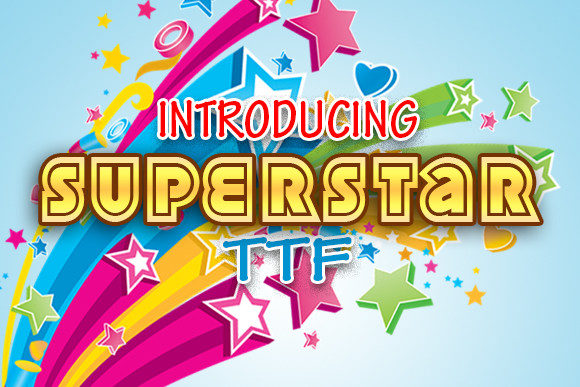
Superstar: A Groovy Font That Elevates Your Designs
If you're looking for a font that adds a touch of retro flair and modern energy to your designs, Superstar is the perfect choice. This groovy font brings a unique vibe that can transform everything from flyers to t-shirts, making it an essential tool for designers, artists, and entrepreneurs alike. Whether you're creating promotional materials or personal projects, Superstar offers a stylish solution that stands out.
Designed with a blend of classic and contemporary elements, Superstar is more than just a font—it's a creative statement. Its bold strokes and playful curves make it ideal for eye-catching headlines, logos, and branding materials. The font’s versatility allows it to fit into various design contexts, from vintage-themed projects to modern digital campaigns.
Challenges in Design and How Superstar Can Help
Designing effective visual content often comes with its own set of challenges. From choosing the right font that aligns with your brand identity to ensuring readability across different mediums, the process can be overwhelming. Many designers struggle with finding a font that balances uniqueness with usability, especially when working on projects that require both aesthetic appeal and clarity.
This is where Superstar shines. Its distinctive style ensures that your designs grab attention without sacrificing legibility. For instance, if you're designing a flyer for a music event, Superstar can add the perfect retro feel while still being easy to read from a distance. Similarly, when creating t-shirts for a band or a local business, the font’s energetic look can help convey the right mood and message.
Practical Applications of Superstar
The applications of Superstar are as varied as the creative minds that use it. Here are a few practical scenarios where this font can make a significant difference:
For businesses, Superstar can be a powerful tool in building a cohesive brand image. By using the same font across different platforms—such as websites, packaging, and advertisements—you can create a consistent and recognizable brand presence.
How Different Users Might Approach Superstar
Users may approach Superstar in different ways depending on their specific needs and goals. A graphic designer might use it for client projects that require a bold and eye-catching look, while a small business owner could incorporate it into their branding to stand out in a competitive market.
For those new to font design, Superstar offers a great starting point. Its intuitive style makes it easy to integrate into existing projects without requiring extensive design knowledge. On the other hand, experienced designers might appreciate the font’s flexibility, allowing them to experiment with different layouts and visual effects.
Regardless of your skill level, Superstar provides a straightforward way to enhance your designs. Its ease of use and adaptability make it a valuable addition to any designer’s toolkit.
Recommendations and Considerations
When using Superstar, consider the context in which it will be used. While the font is highly readable in larger sizes, it may not be suitable for long blocks of text. Instead, use it for headings, titles, and short phrases to maintain clarity and impact.
Additionally, ensure that Superstar complements the overall design. If your project has a minimalist or modern theme, pairing Superstar with simpler fonts can create a balanced and harmonious look. For more eclectic designs, the font can serve as a focal point that adds visual interest.
Finally, always test Superstar across different mediums. Print materials, digital screens, and various file formats may render the font differently, so it’s important to review your work in multiple settings before finalizing your design.
Conclusion
Superstar is more than just a font—it’s a creative asset that can elevate your designs and help you achieve your visual goals. Whether you're working on a professional project or a personal endeavor, this groovy font offers a unique and stylish solution that stands out. By understanding its strengths and limitations, you can effectively incorporate Superstar into your work and create designs that leave a lasting impression.